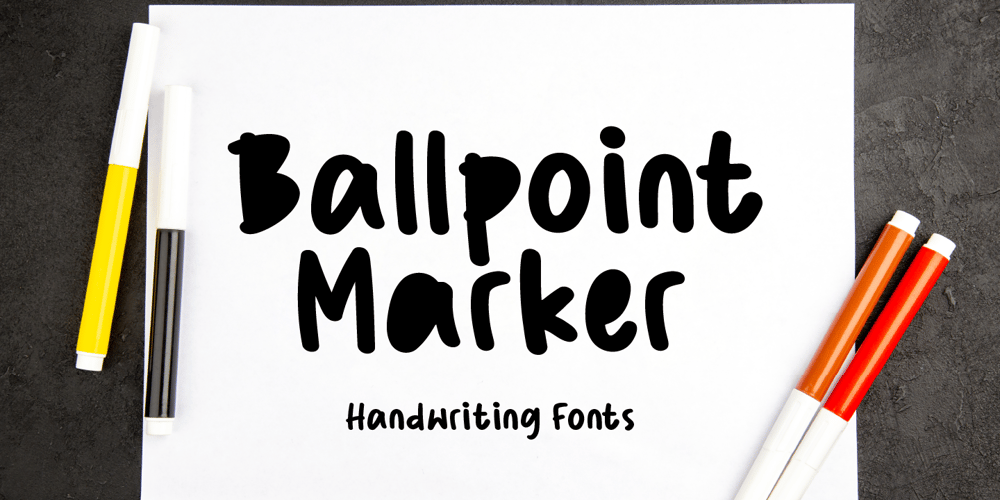
Ballpoint Marker Font Family was designed by Stefie Justprince and published by Crumphand. Ballpoint Marker contains 1 styles and family package options. Introducing the new handwriting font Ballpoint Marker.Ballpoint Marker is made 100% ballpoint.Still looks fun, cute. make your design looks better.What’s Included Inside The Font ?UppercaseLowercaseNumbersSymbolsEuropean MultilingualStylistic Alternates 1 Stylistic Alternates 2PUA EncodedThank You, Regards!